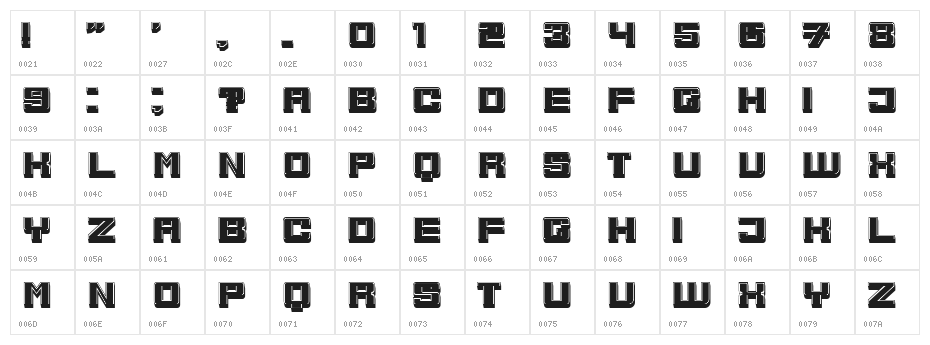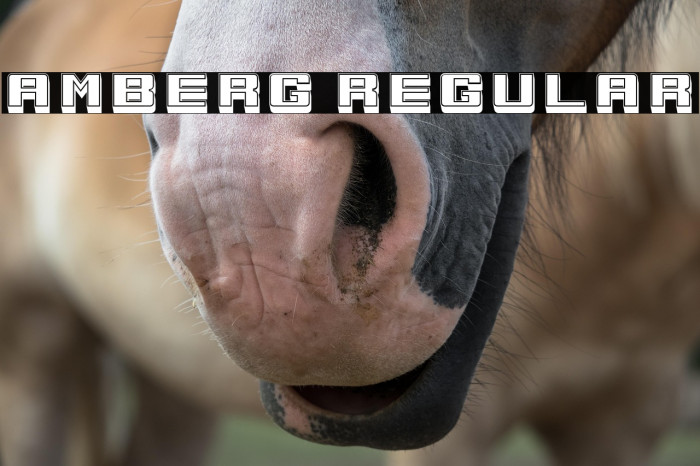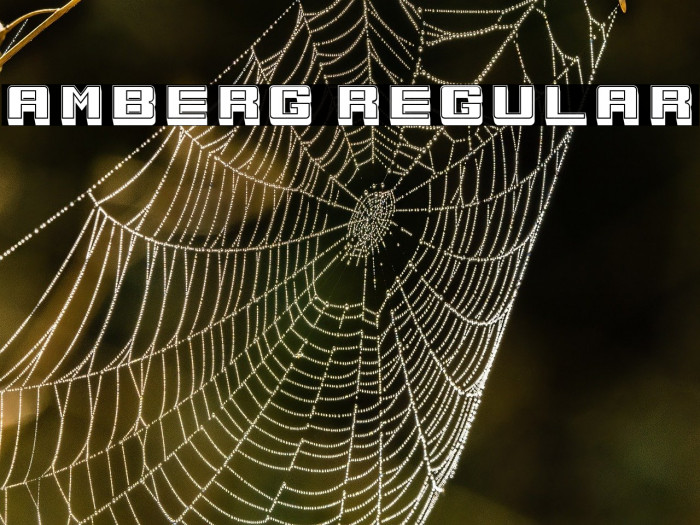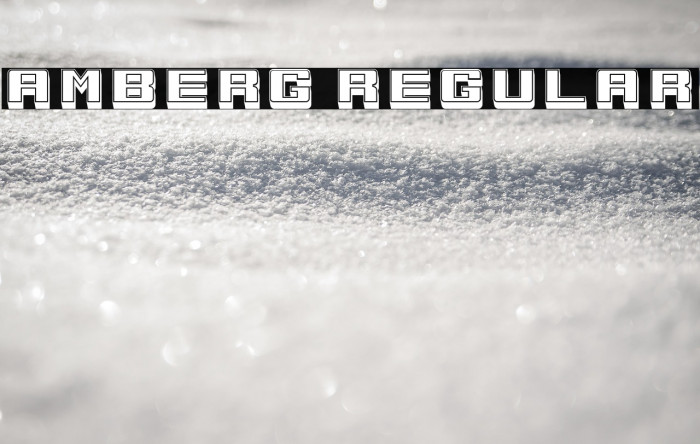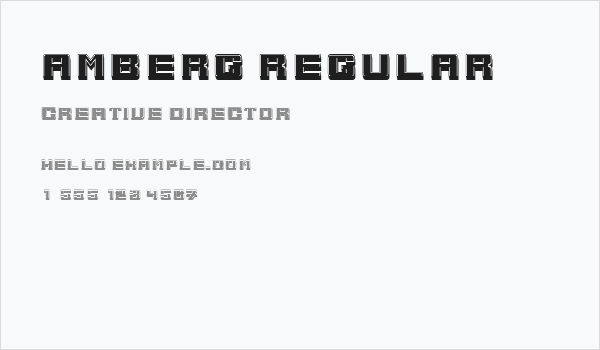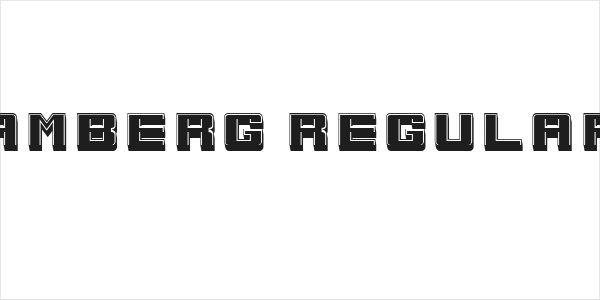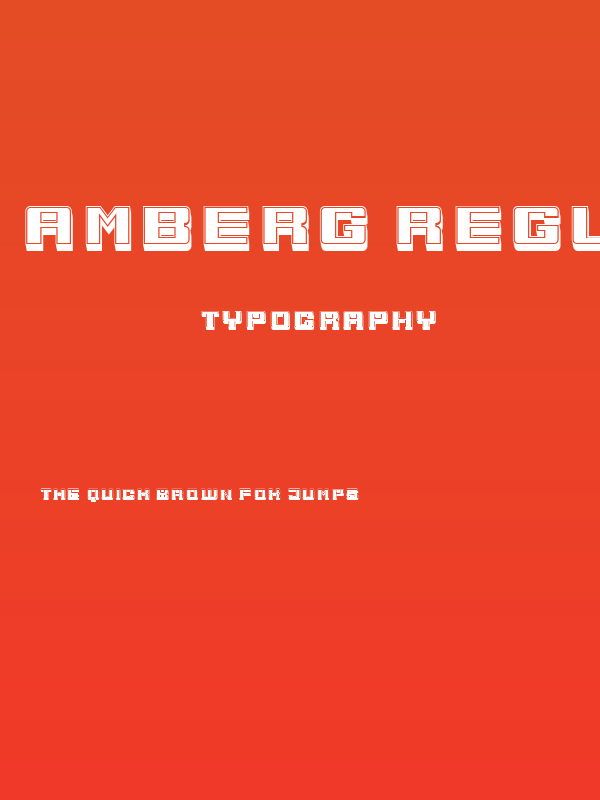
This font features a bold, geometric design with a three-dimensional effect, characterized by thick, block-like letters that have a shadowed outline. The uppercase letters are uniform in height and width, providing a strong and impactful visual presence. The numerals and special characters share the same bold and structured style, making them highly legible and visually consistent with the alphabet. The font's design is reminiscent of industrial or futuristic themes, making it suitable for projects that require a modern and assertive look.
| Use Case | Logos, Headlines, Posters |
| Proposed Projects | Ideal for branding, posters, video game graphics, and any design requiring a modern, industrial aesthetic. |